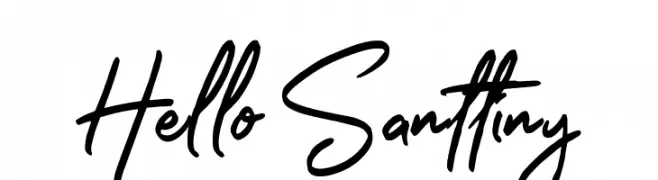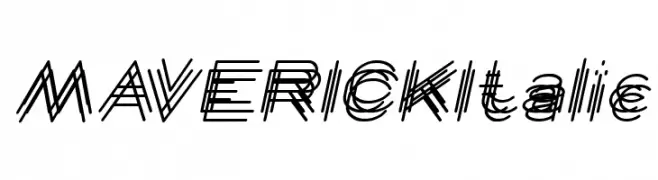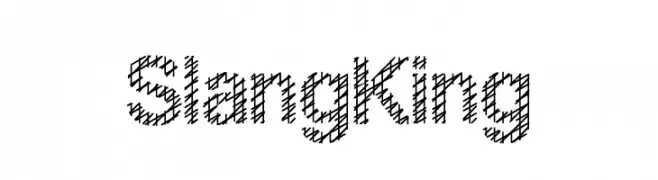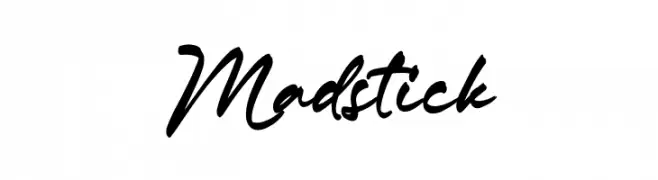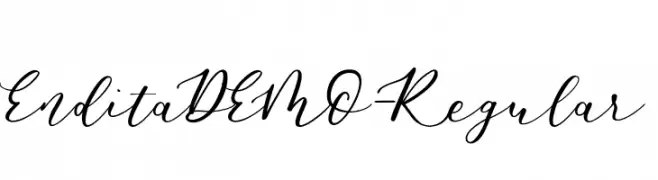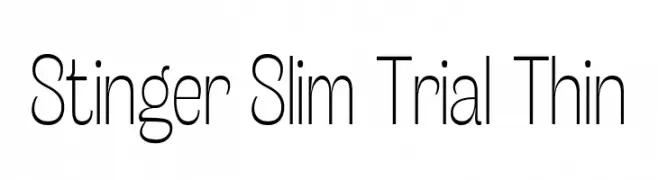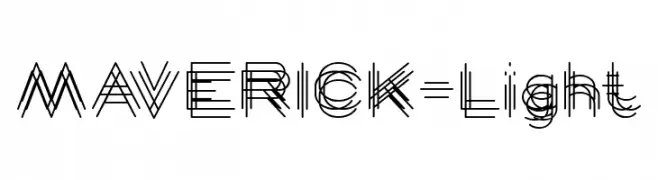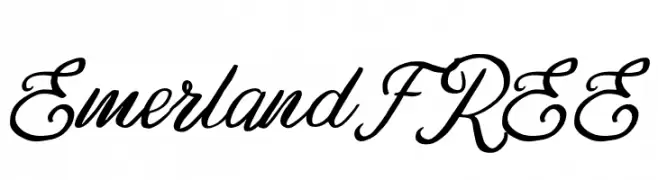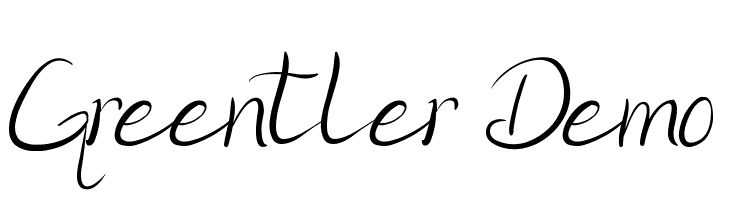
A dynamic, cursive script font with a handwritten feel.
A bold, expressive script font with elegant, flowing strokes and high contrast.
A playful, hand-drawn font with tall, narrow characters and a whimsical style.
A lively and elegant script font with smooth, interconnected curves.
A bold, italicized font with a dynamic overlapping line effect.
A bold, decorative font with a crosshatch pattern, ideal for creative projects.
Bold, casual handwritten script with energetic strokes.
An elegant cursive script font with flowing, interconnected strokes.
A sleek, modern font with thin, elongated strokes for a minimalist aesthetic.
A modern, layered font with overlapping lines creating a geometric and artistic style.